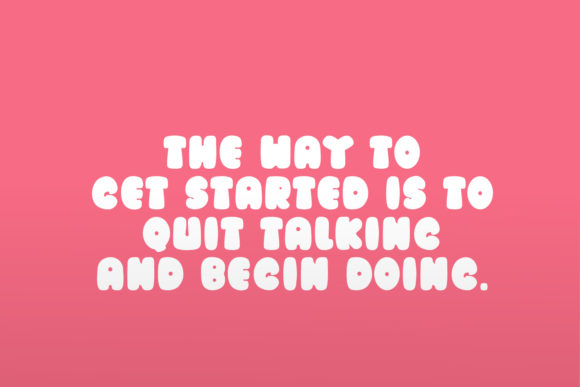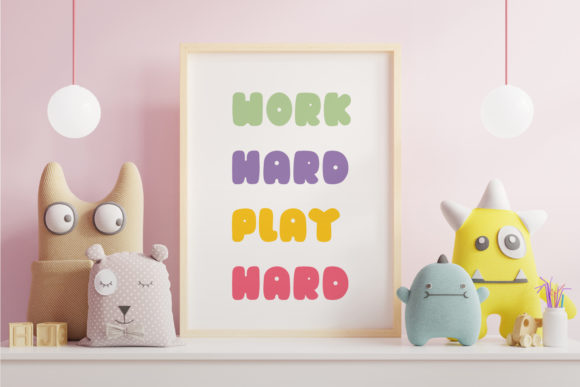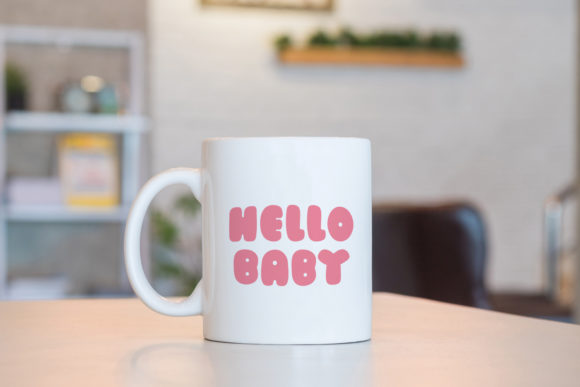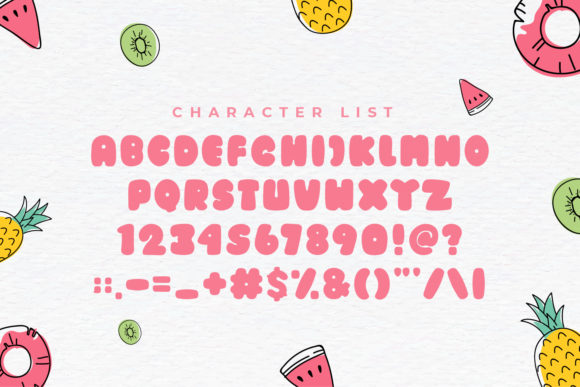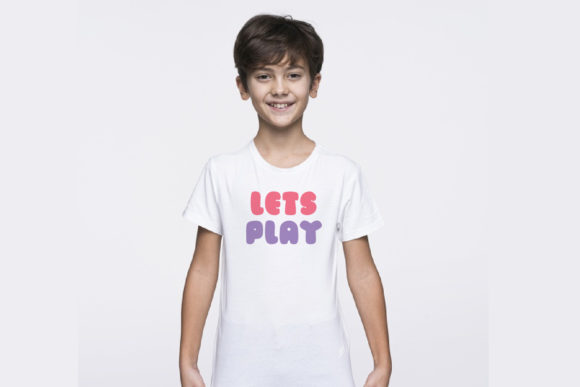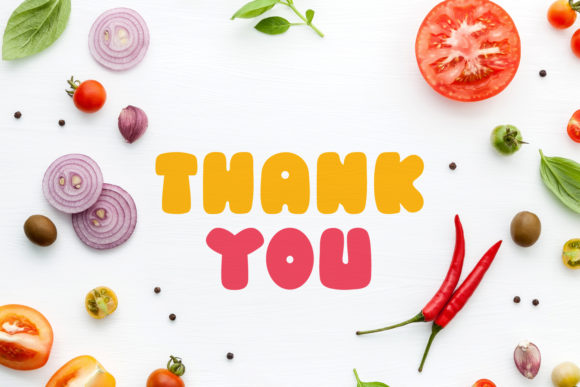
Caboo Font: The Perfect Choice for Children-Themed Designs
If you’re a designer or crafter looking for a font that’s both cute and playful, look no further than Caboo Font. This adorable, chubby lettered display font is perfect for children-themed designs, especially when combined with bright colors. In this article, we’ll take a closer look at Caboo Font, its features, and how you can use it to create stunning designs that kids will love.
What is Caboo Font?
Caboo Font is a unique and charming display font that’s designed to bring a smile to your face. Its distinctive, rounded letters are chubby and cute, making it an ideal choice for designs that require a playful touch. Whether you’re creating a logo, a poster, or a digital product, Caboo Font is sure to add a dash of whimsy and fun to your project.
Key Features of Caboo Font
- Cute and Playful Design: Caboo Font features rounded, chubby letters that are sure to delight kids and adults alike.
- Perfect for Children-Themed Designs: This font is specifically designed for use in children’s designs, making it a great choice for projects like kids’ party invitations, children’s book illustrations, and more.
- Works Well with Bright Colors: Caboo Font looks amazing when paired with bright, bold colors, making it perfect for designs that require a pop of color.
- Easy to Read: Despite its playful design, Caboo Font is surprisingly easy to read, making it a great choice for designs that require a clear and concise message.
How to Use Caboo Font in Your Designs
Caboo Font is incredibly versatile and can be used in a wide range of design projects. Here are a few ideas to get you started:
- Kids’ Party Invitations: Use Caboo Font to create adorable invitations for kids’ parties, complete with bright colors and fun graphics.
- Children’s Book Illustrations: Add a touch of whimsy to your children’s book illustrations with Caboo Font, perfect for titles, headings, and captions.
- Digital Products: Use Caboo Font in digital products like printable art, planners, and worksheets for kids.
- Branding and Packaging: Create a fun and playful brand identity with Caboo Font, perfect for children’s products and packaging.
Tips for Getting the Most Out of Caboo Font
To get the most out of Caboo Font, here are a few tips to keep in mind:
- Experiment with Colors: Don’t be afraid to try out different color combinations with Caboo Font. Bright colors and bold contrasts look amazing with this font.
- Play with Size and Scale: Caboo Font looks great in a variety of sizes, from large display headings to smaller body text.
- Combine with Other Fonts: Try pairing Caboo Font with other fonts to create a unique and interesting design.
Caboo Font is a delightful and playful font that’s perfect for children-themed designs. Its cute and chubby letters are sure to bring a smile to your face, and its versatility makes it a great choice for a wide range of design projects. Whether you’re a designer, crafter, or DIY enthusiast, Caboo Font is a must-have in your font collection.